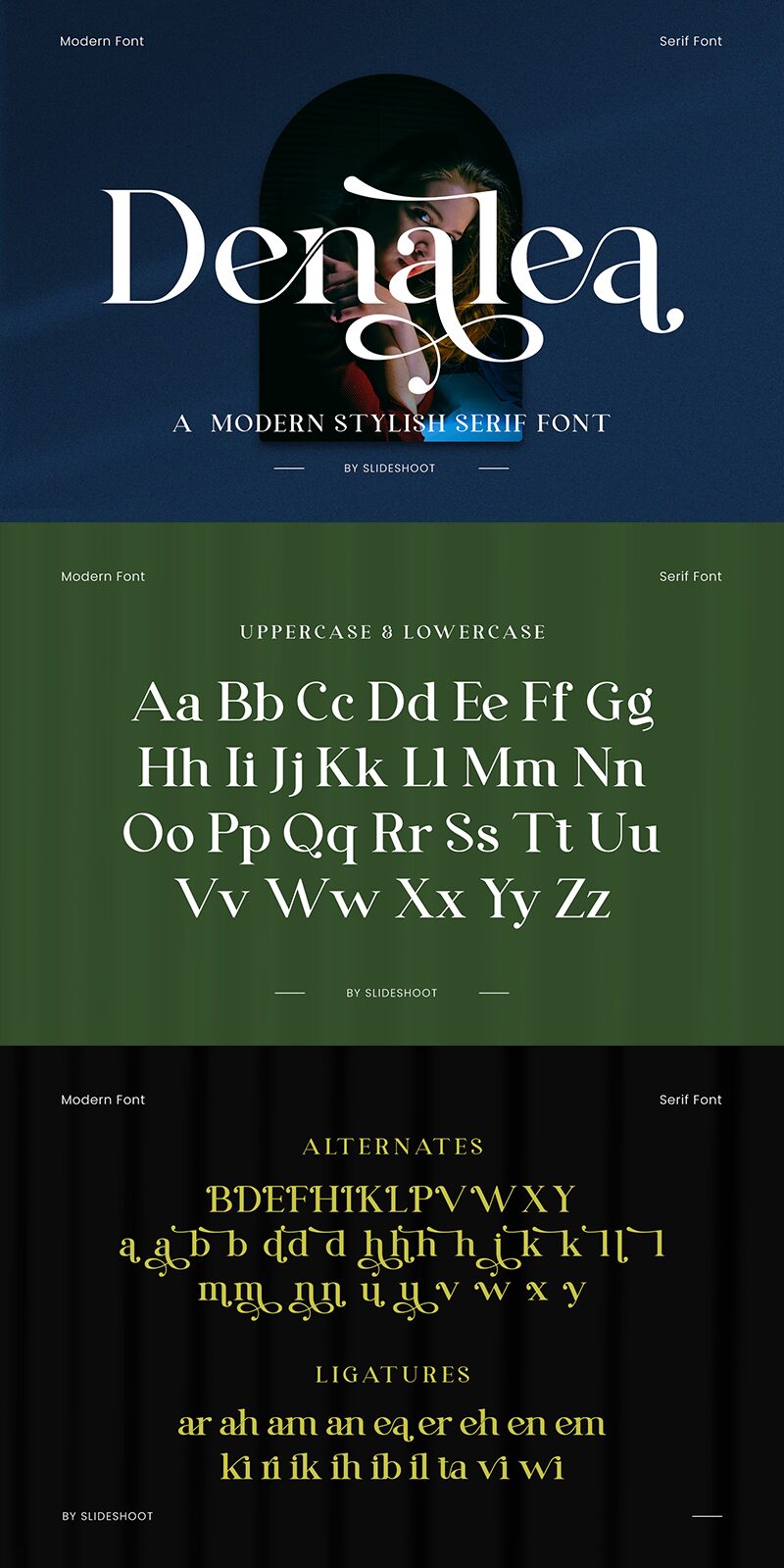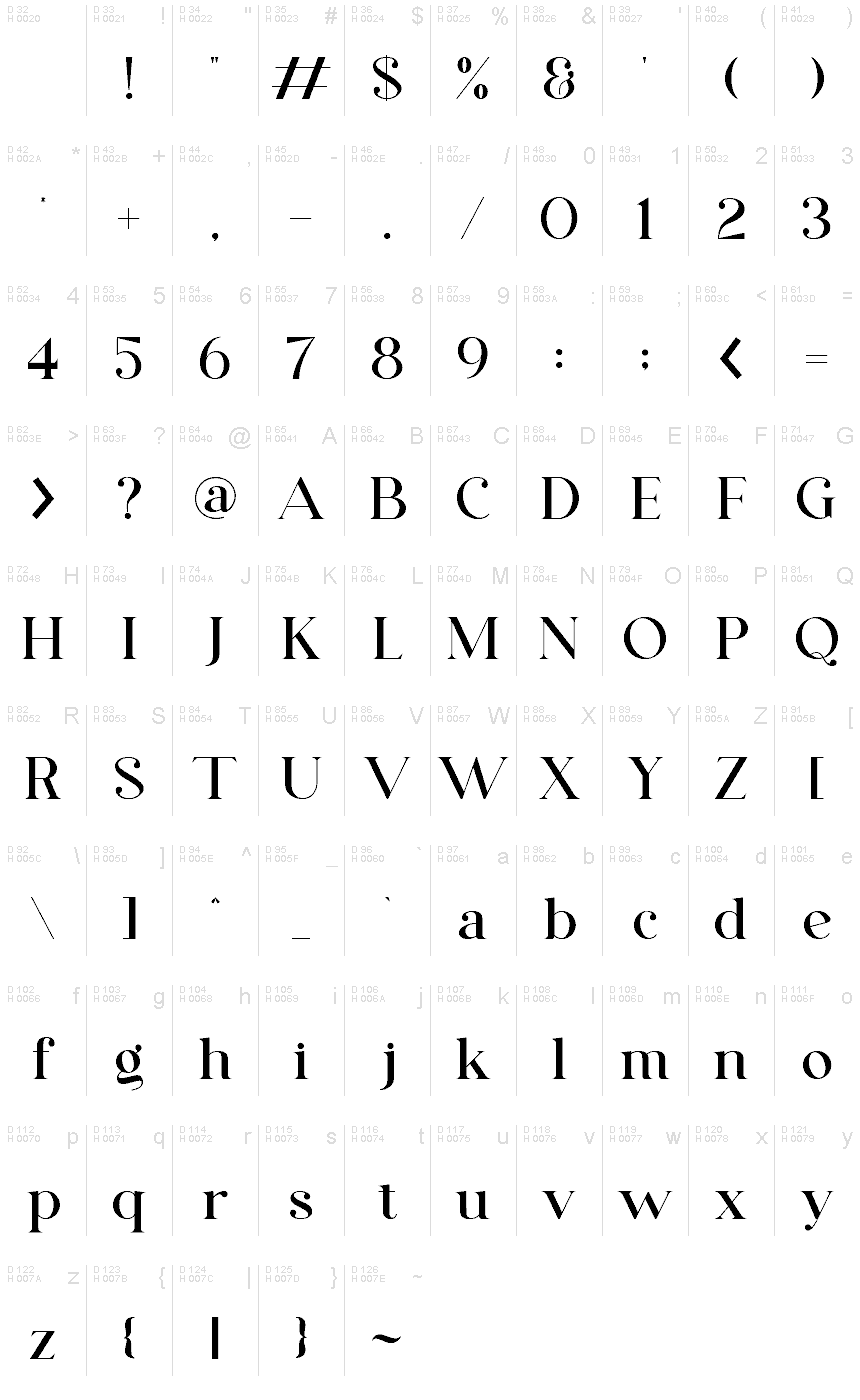
Denalea
Denalea font designed by Ahmad Riqi of SlideShoot is a free serif font that binds elegance, sophistication and professionalism. The alphabet features classic elements, and refined curves but fits seamlessly in modern aesthetics. Visual consistency makes Denalea perfect for those who see text content exceptionally important within their line of work.
Great use cases: headlines, newspapers, posters, magazine covers/pages, product/packaging labels, ads (online or offline), business cards, invitations cards. Get creative on authentic book covers – both printed and digital!